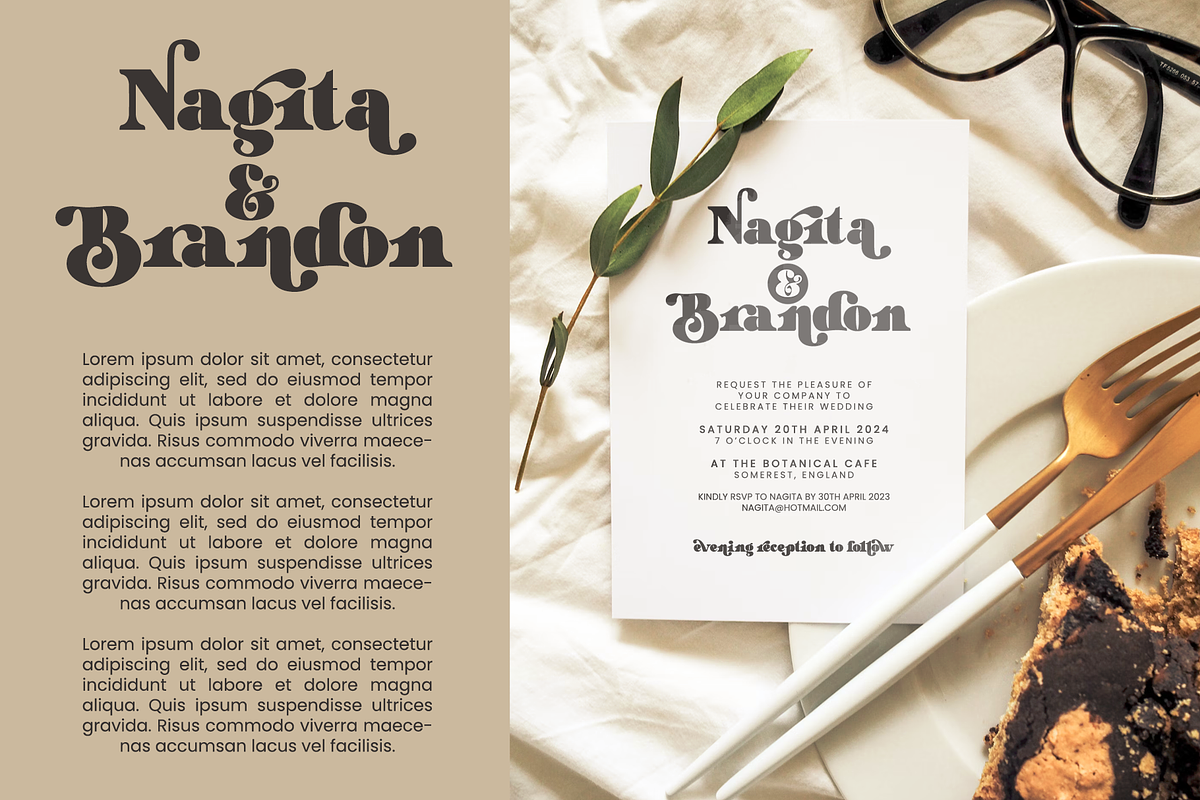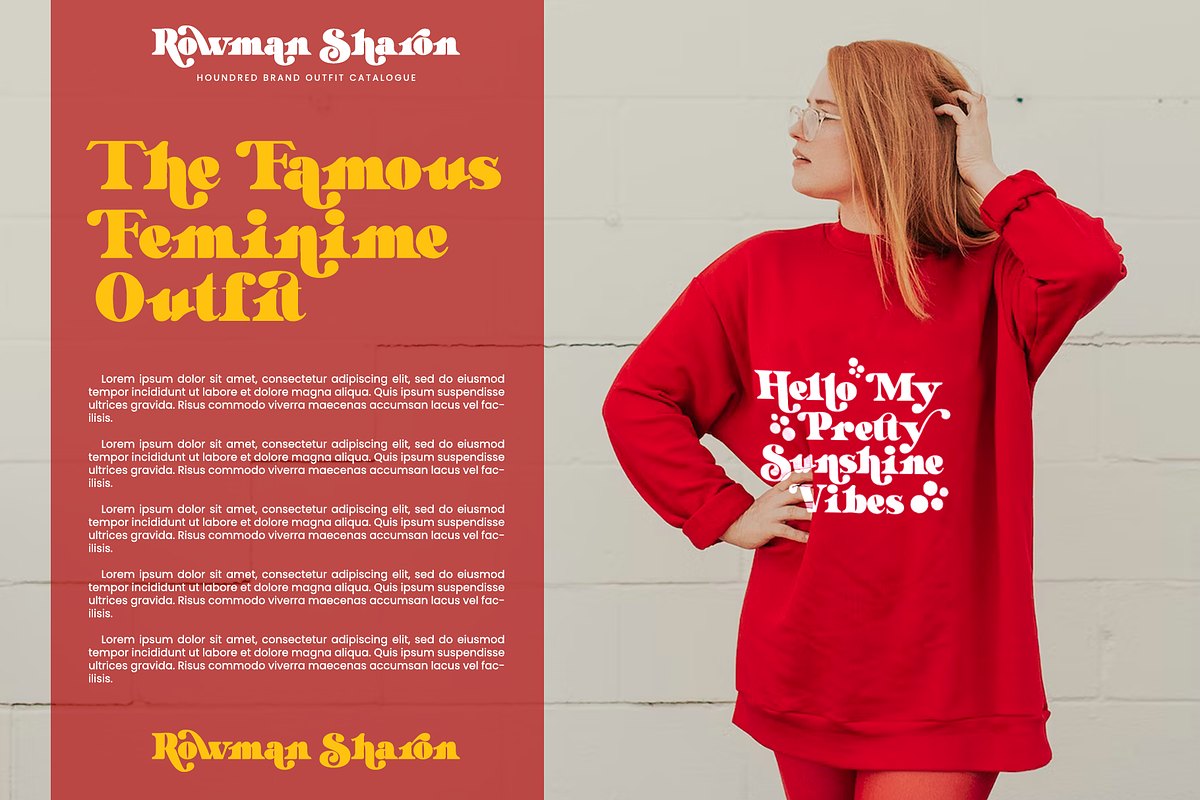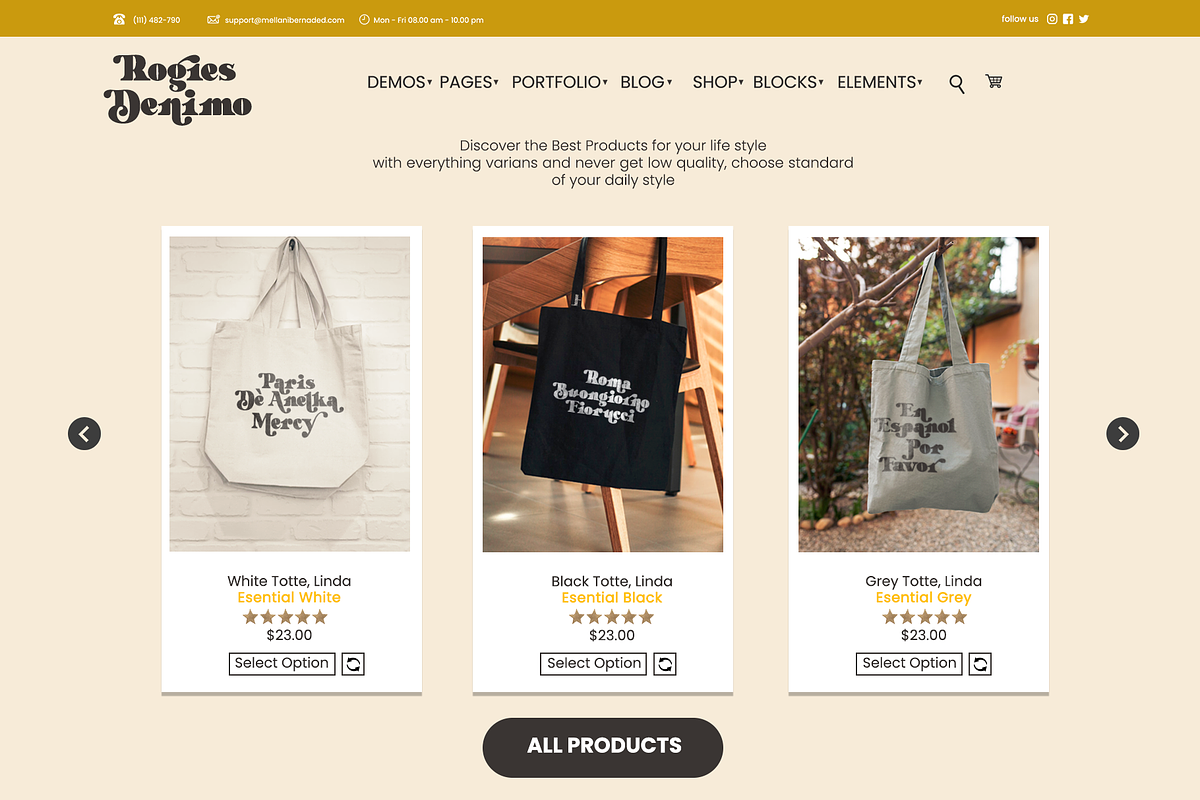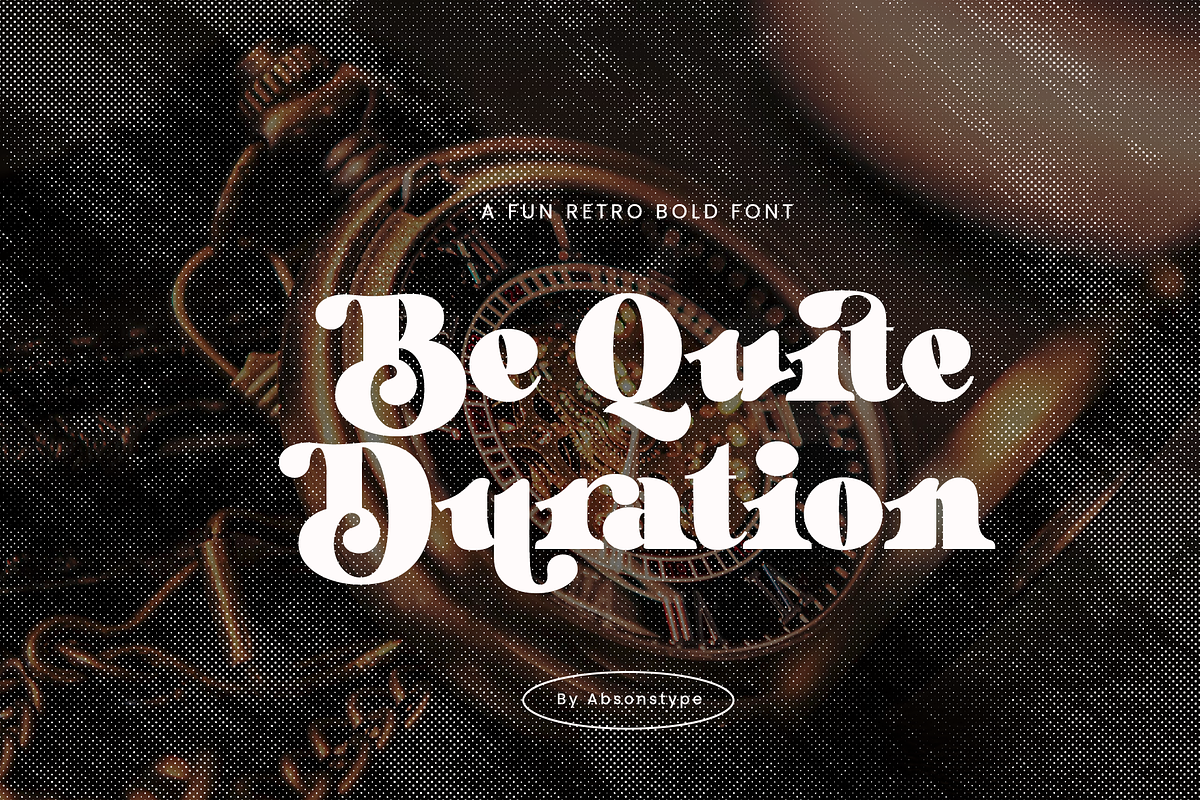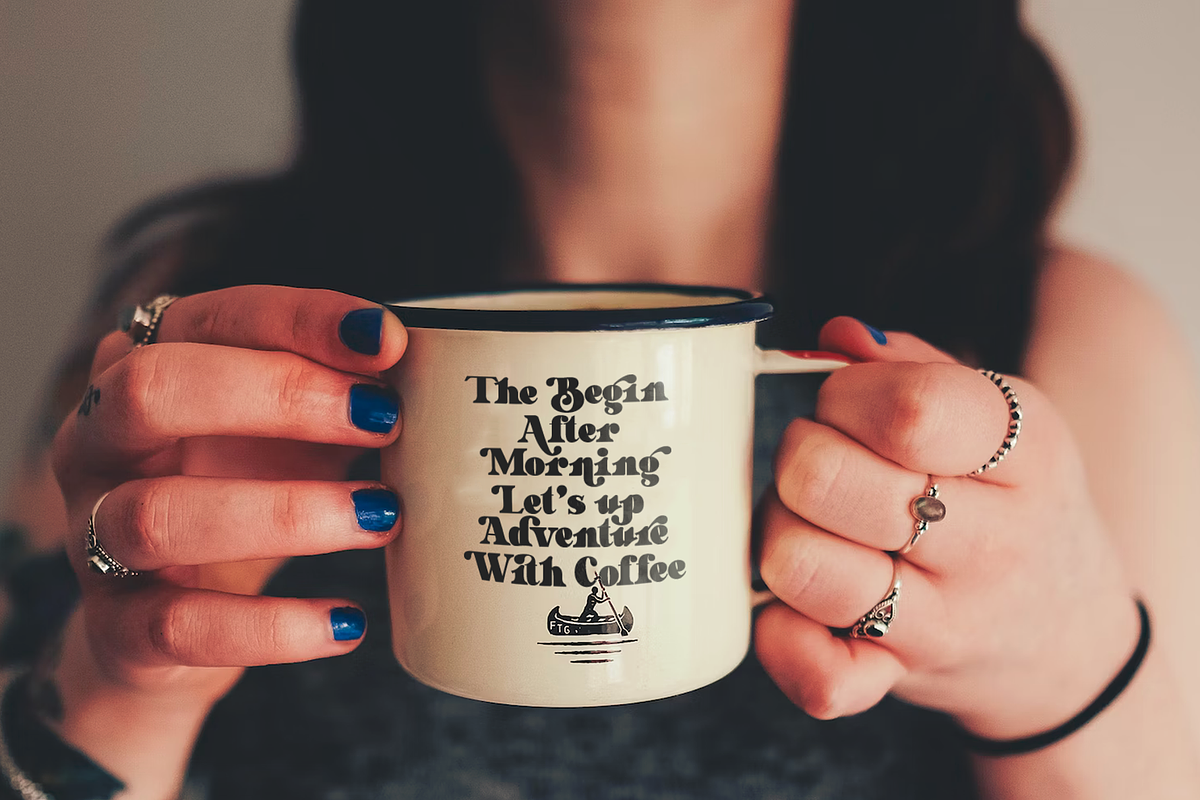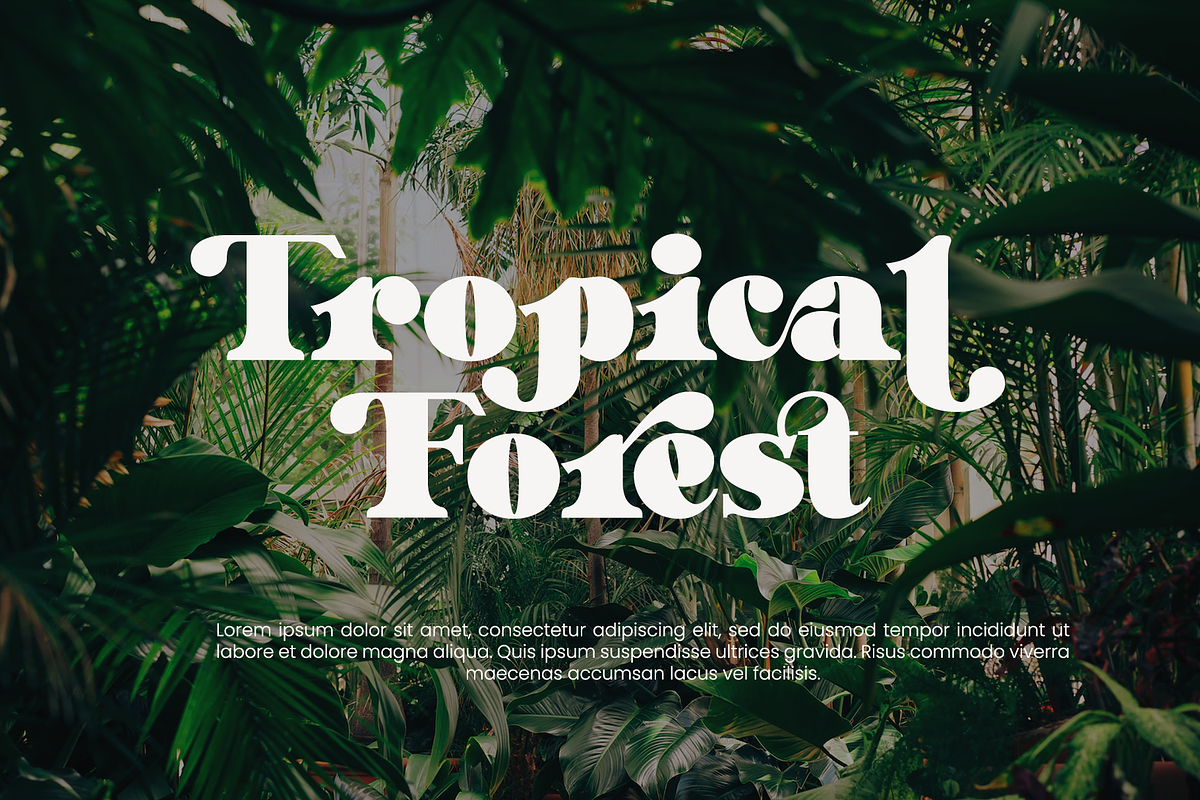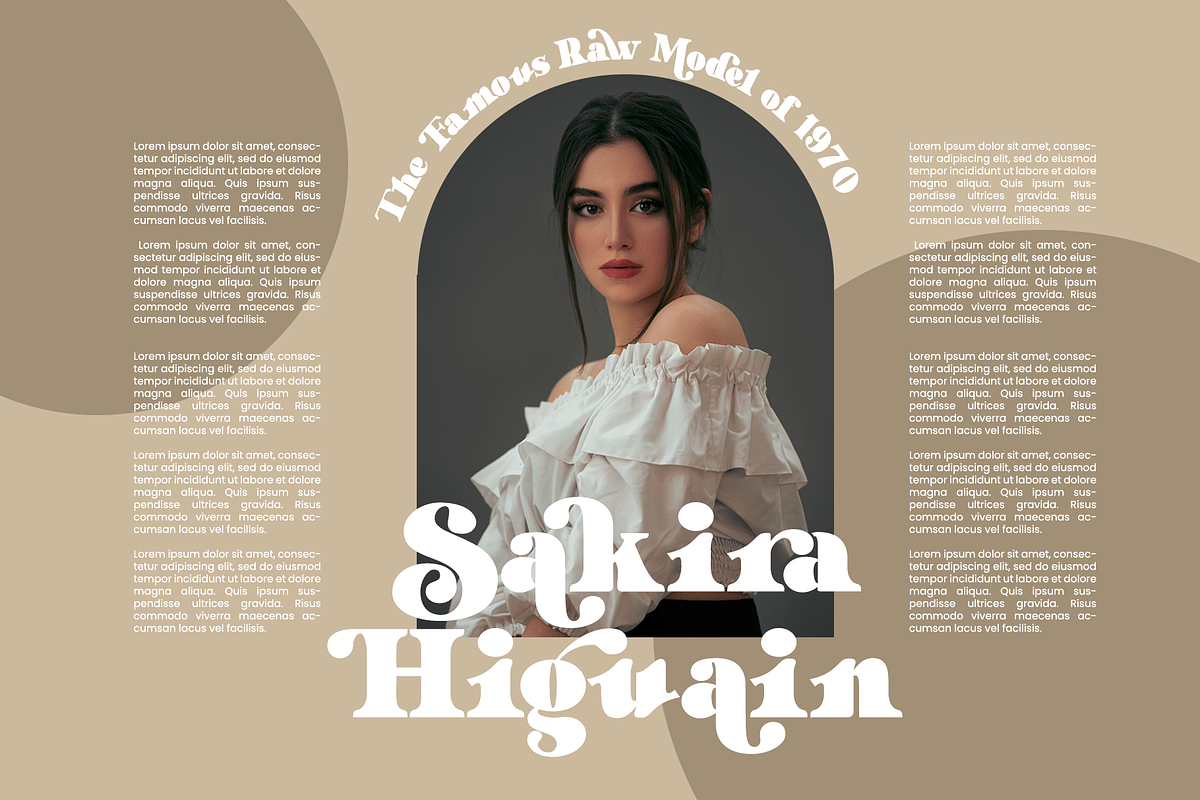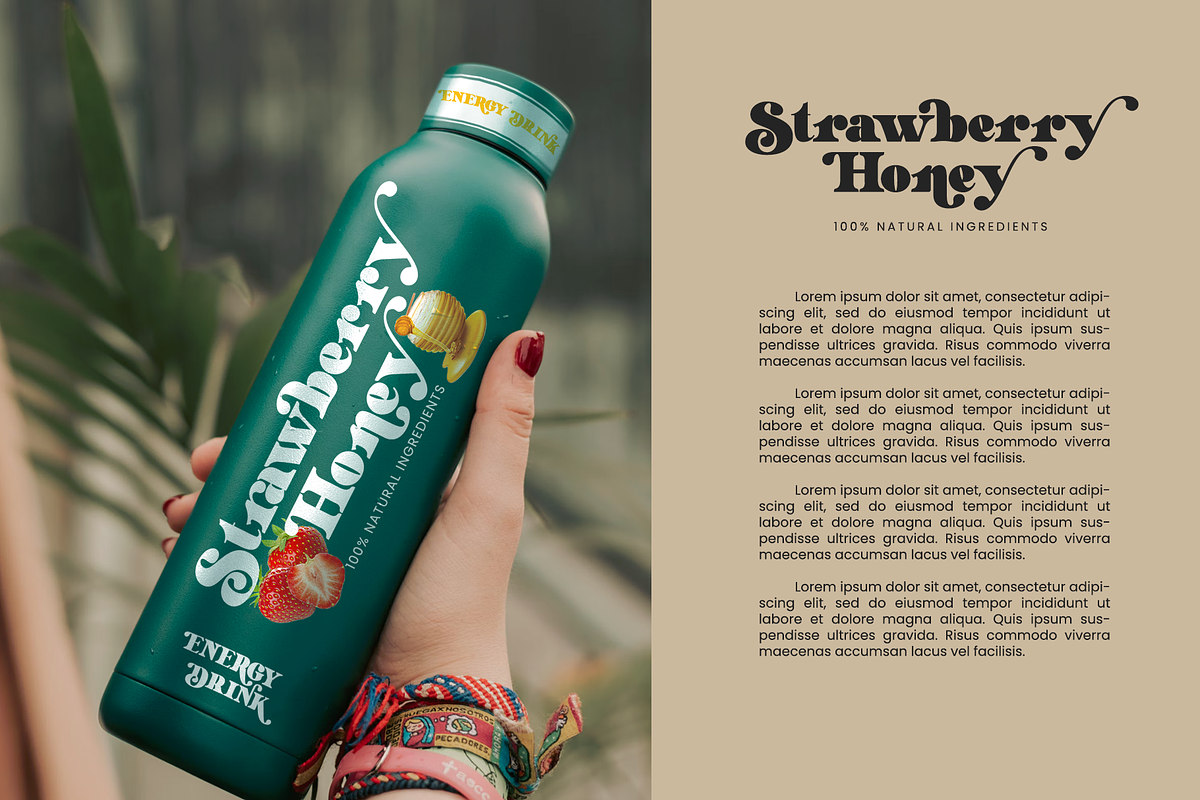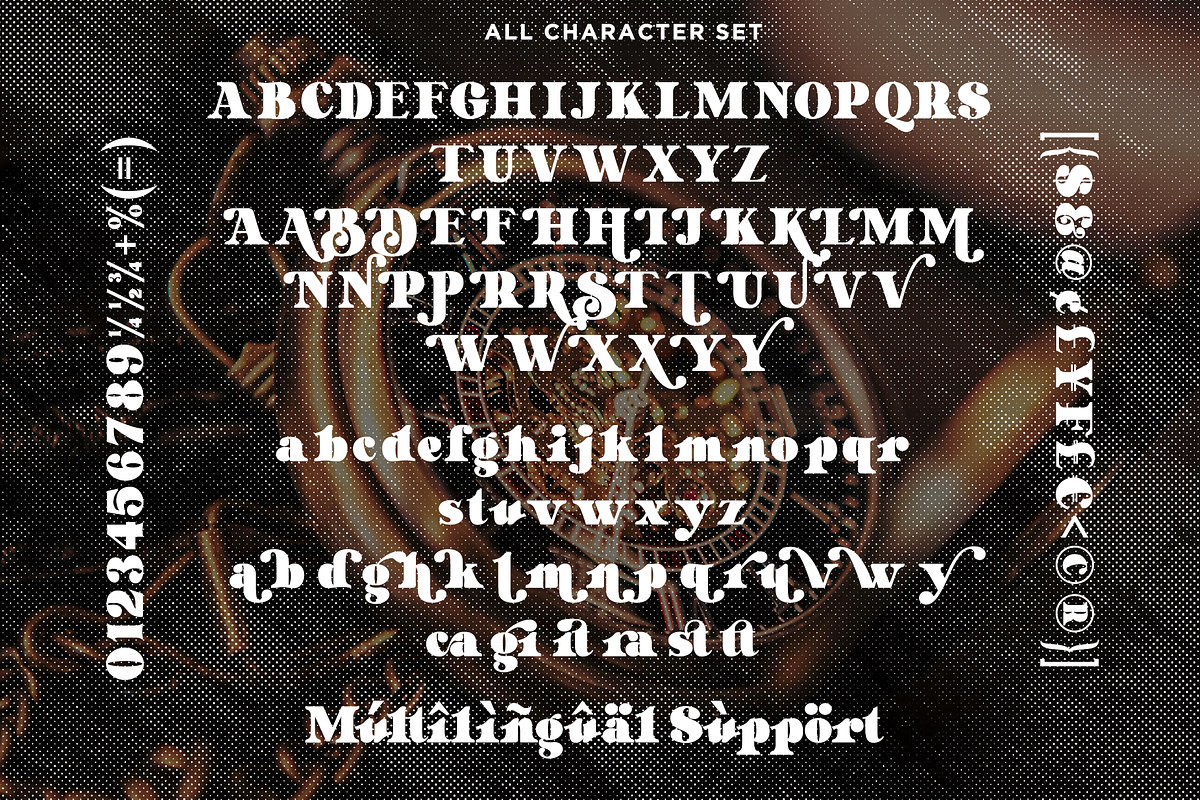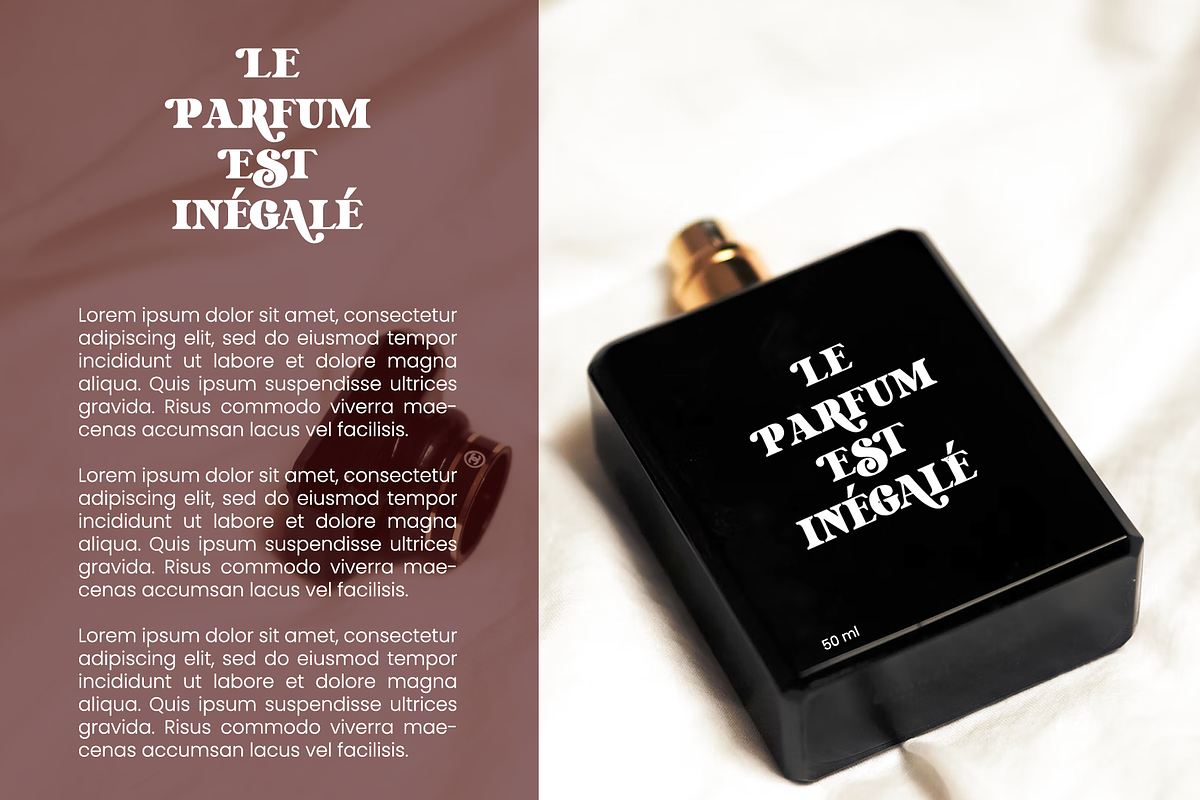
Be Quite Duration - Absonstype
Be Quite Duration is the Unique Serif display typeface with combine uppercase and lowercase looks and feel nice balanced. Provide with alternates and ligatures font in variant style make the design letter looks nice. Honestly it works perfectly for headlines, logos, posters, packaging, T-shirts and much more.
- Regular version
- Character set A-Z in Uppercase and Lowercase
- Alternates in Uppercase and Lowercase
- Ligatures in Lowercase
- Accented Characters
- Multiple Languages Supported